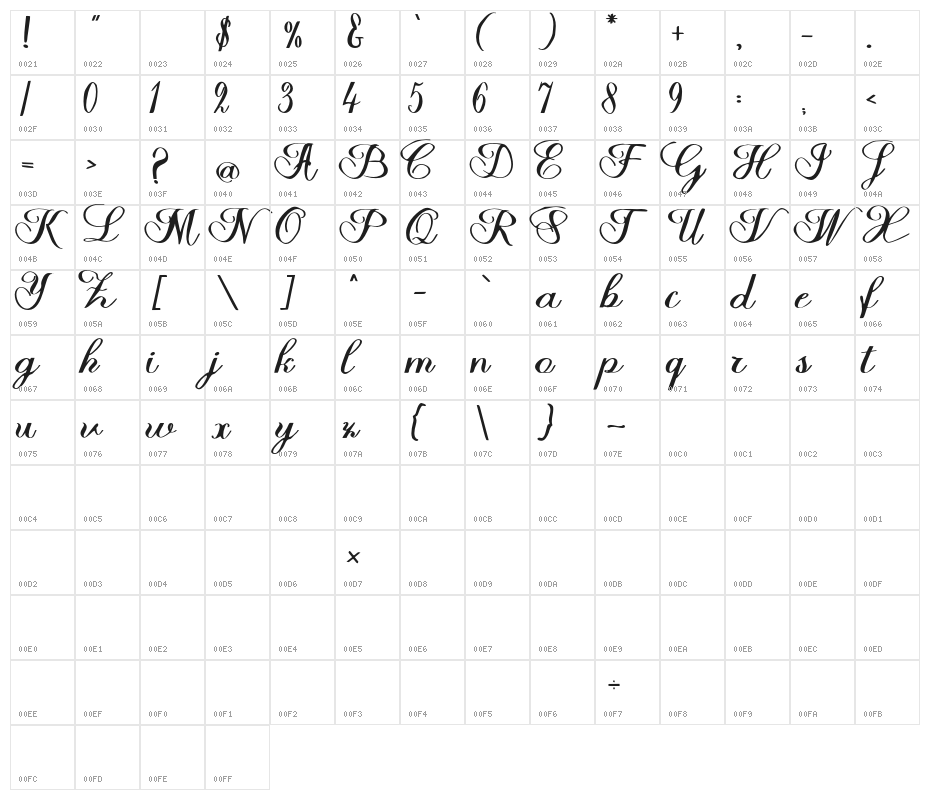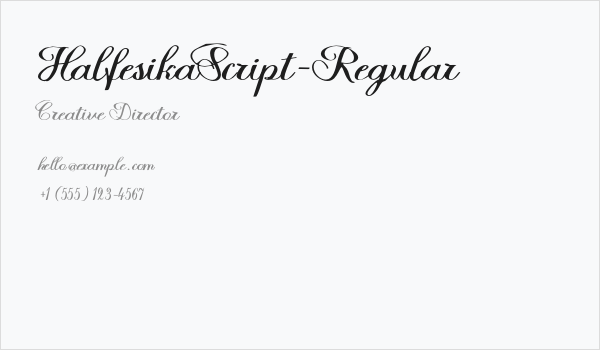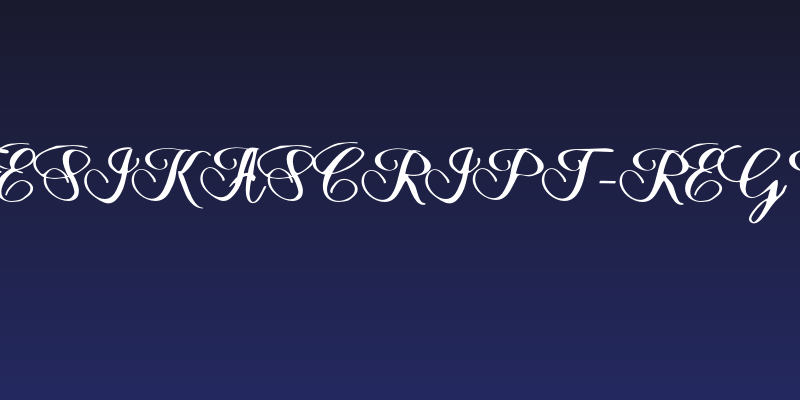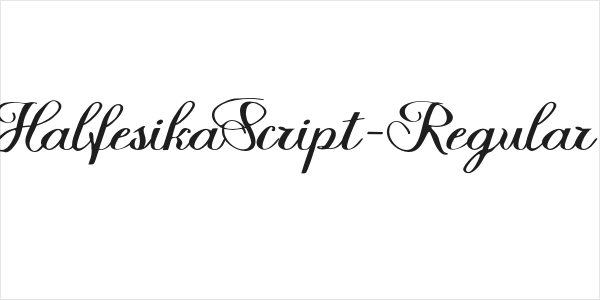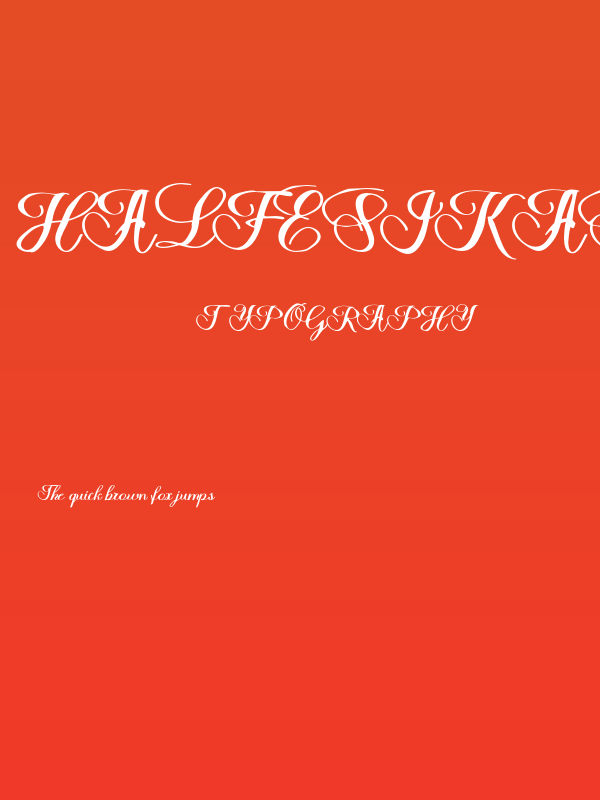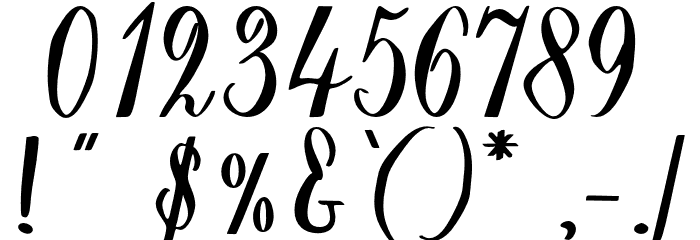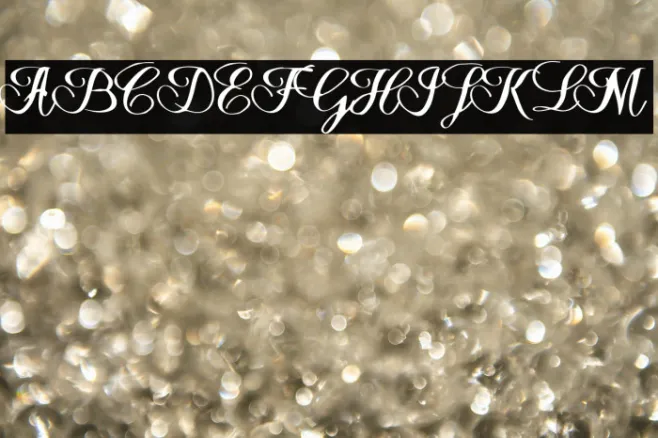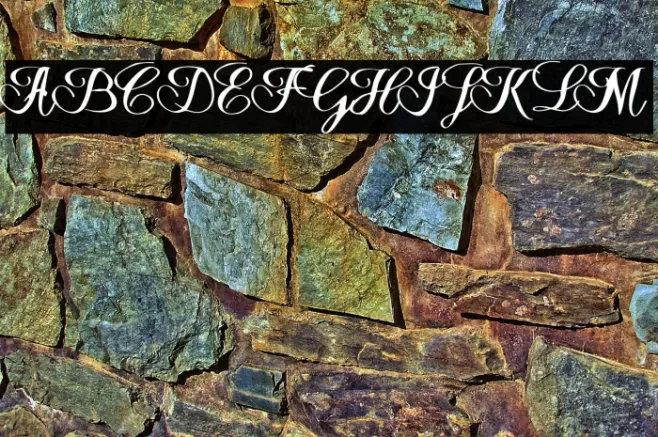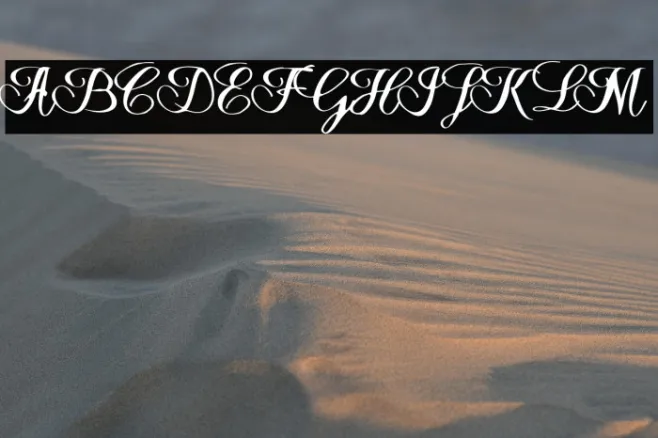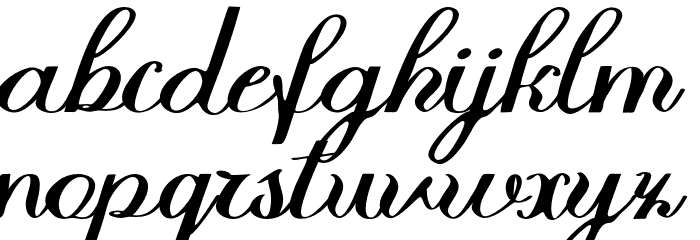
HalfesikaScript-Regular Font
HalfesikaScript-Regular Description
This elegant script font features a flowing, cursive style with intricate loops and swashes, giving it a sophisticated and artistic appearance. The uppercase letters are particularly ornate, with flourishes that extend beyond the baseline and cap height, adding a touch of drama and flair. The lowercase letters maintain a consistent flow, with smooth connections between characters, enhancing readability while preserving the decorative nature. The numerals and special characters are designed to match the overall aesthetic, ensuring a cohesive look across all text elements. This font is ideal for projects that require a touch of elegance and creativity.